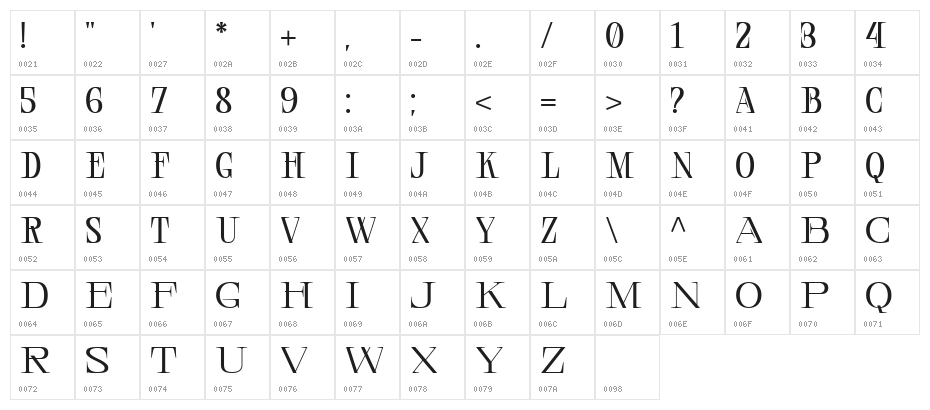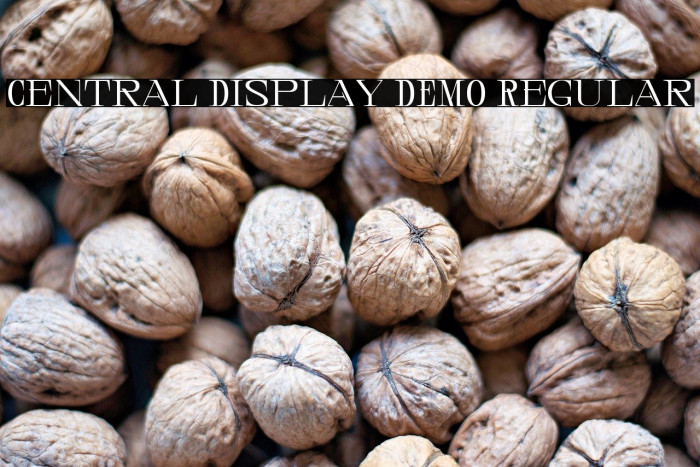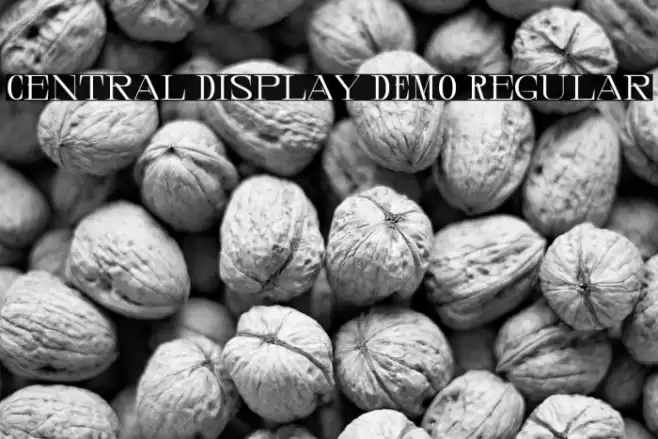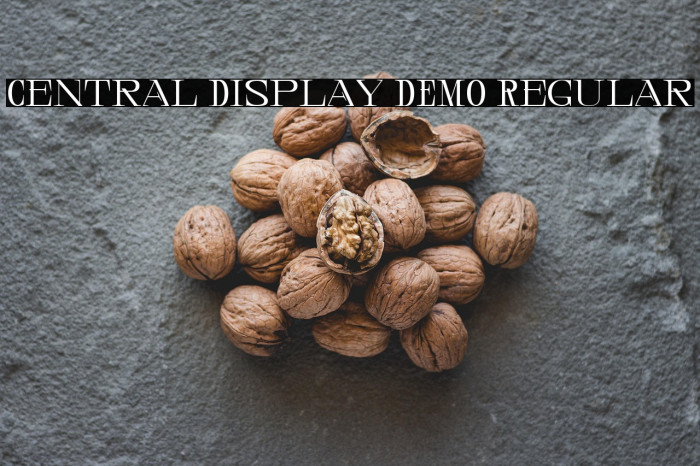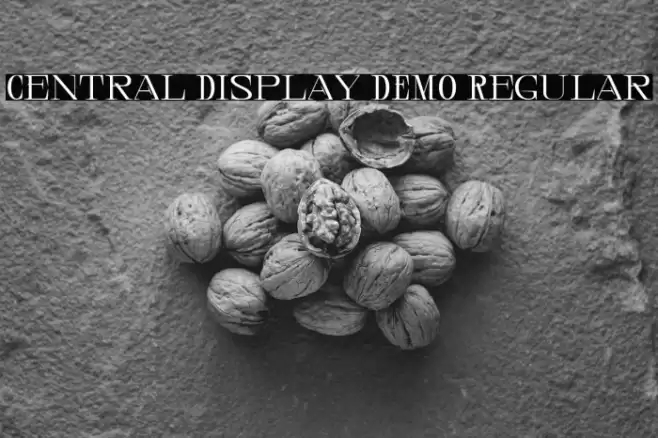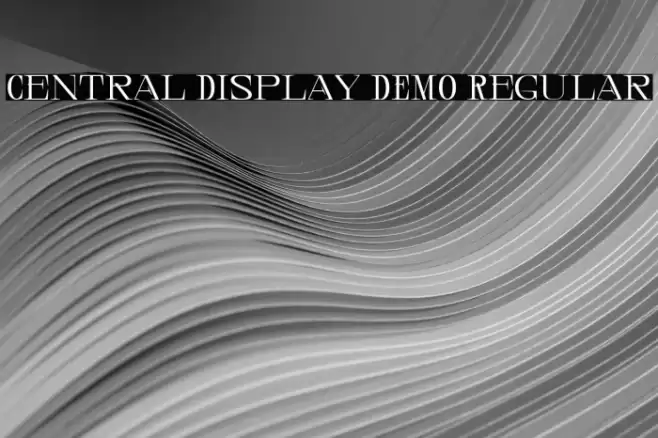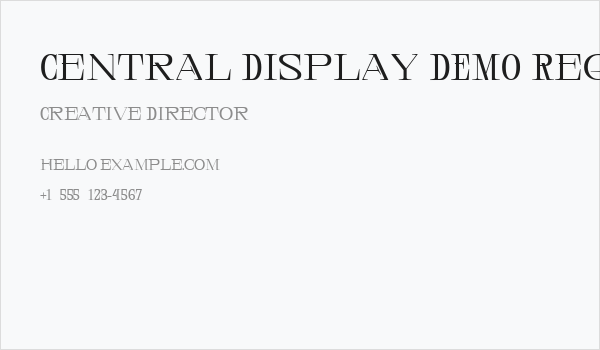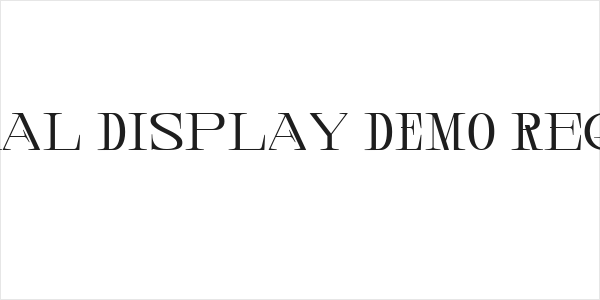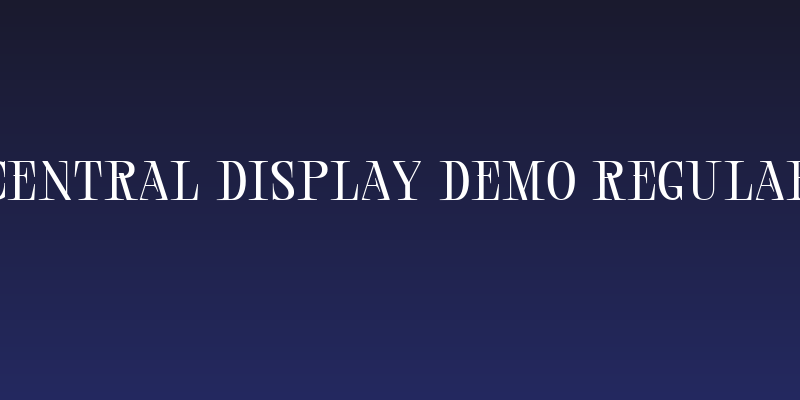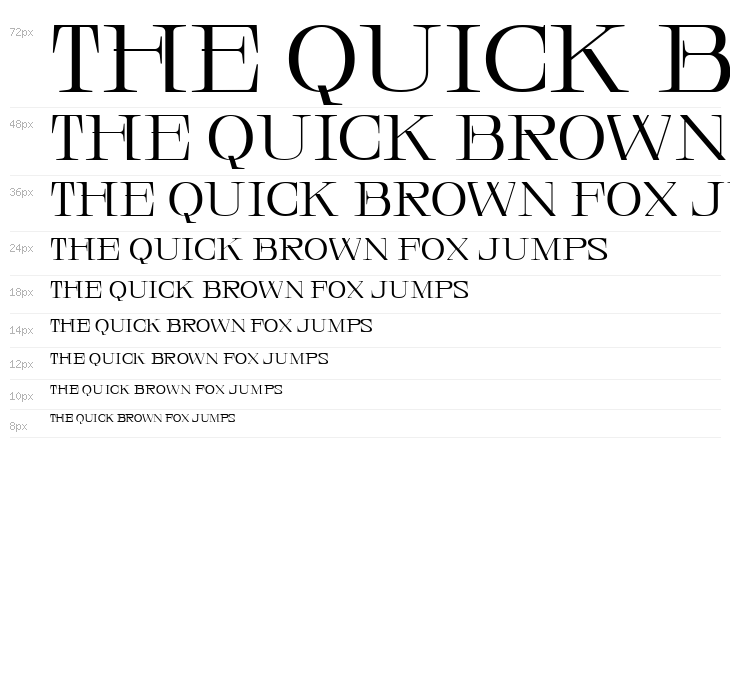
Central Display DEMO Regular Font
Central Display DEMO Regular Description
This font features a bold and striking design with high contrast between thick and thin strokes, giving it a dramatic and elegant appearance. The uppercase letters are particularly prominent, with sharp serifs and a vertical stress that adds to its formal and sophisticated look. The lowercase letters maintain the same level of contrast and elegance, ensuring consistency throughout the typeface. The numerals are equally bold, with a classic style that complements the overall design. Special characters are included, maintaining the same aesthetic qualities. This font is ideal for making a strong visual impact.
| Proposed Projects | Ideal for luxury branding, editorial headlines, and formal invitations. |